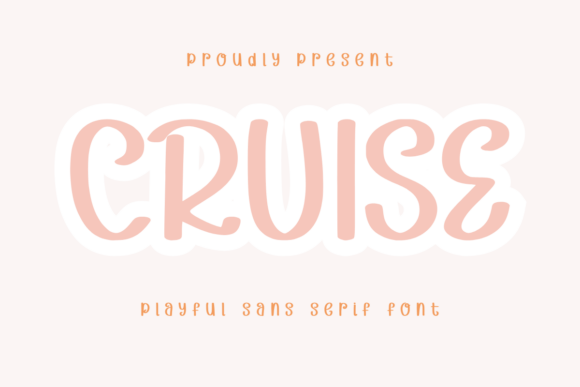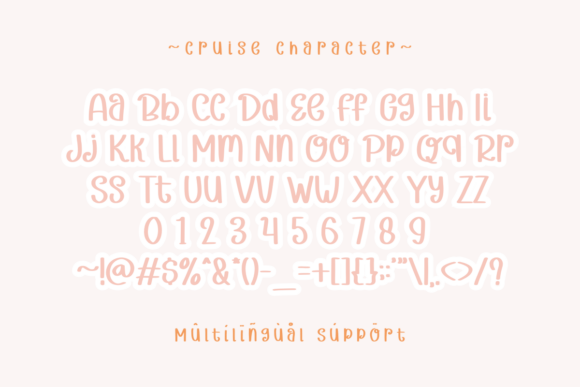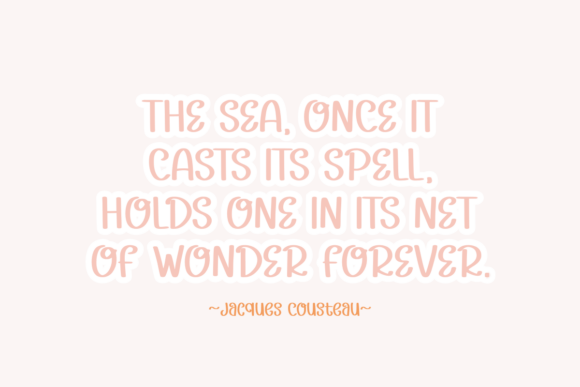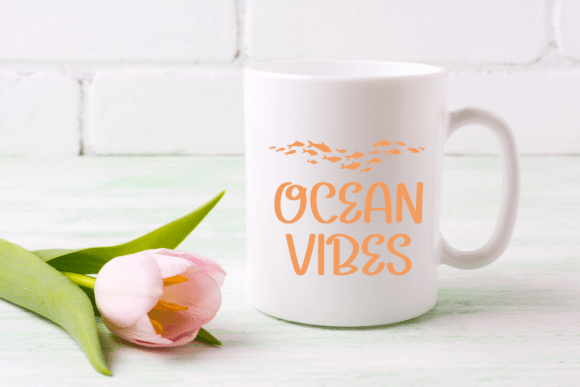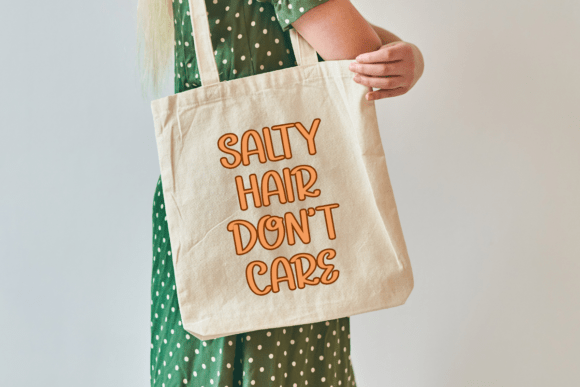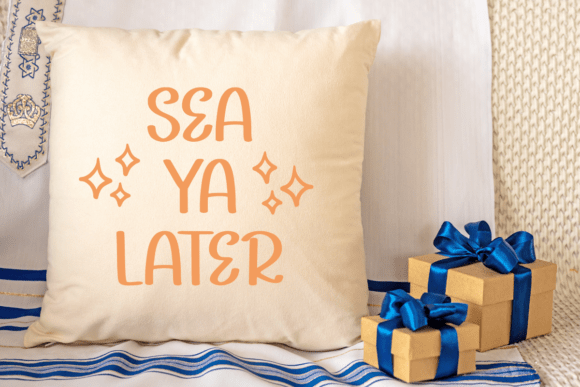
Deck the Halls with the Perfect Holiday Font
As the holiday season approaches, designers are scrambling to create festive and fun designs that capture the magic of the season. For many of us, it’s that moment when we’re brainstorming ideas for our holiday cards or invitations, and we just can’t seem to find the right font to match our vision. That’s where the Cruise Font comes in – a delightful sans serif font that’s specifically designed to add a touch of holiday cheer to your designs.
This charming font is perfect for creating cards, invitations, and other holiday-themed graphics that exude joy and festivity. With its playful curves and bold lines, the Cruise Font is sure to make your designs stand out from the crowd. Whether you’re a seasoned designer or just starting out, this font is a valuable addition to your toolkit – and a great way to add some holiday magic to your work.
- Font Family: Cruise Font is a sans-serif typeface designed for use in digital applications.
- Unique Characteristics: Features a clean, modern design with a subtle rounded edge, making it suitable for use in a variety of digital applications, including websites, mobile apps, and digital signage.
- Kerning and Ligatures: Includes advanced kerning and ligature features to ensure smooth text rendering and improved readability.
Cruise Font Review
As a designer, I’ve had the chance to work with a wide variety of fonts, but “Cruise Font” caught my eye. ✨ One of the things that stood out to me was its clean and modern aesthetic. The font is perfect for anyone looking for a clean and sophisticated look.
Here are some of the things that I like about “Cruise Font”:
- ✨ Highly legible: The font is easy to read, even at small font sizes.
- ✨ Versatile: It works well for both digital and print applications.
- ✨ Stylish: The font has a unique, modern flair that sets it apart from other fonts.
- ⚠️ Limited language support: “Cruise Font” doesn’t support a wide range of languages, which may be a problem for designers who need to work with multiple languages.
- ⚠️ Limited character set: The font has a limited character set, which may not be suitable for designers who need to use special characters or symbols.
Overall, I think “Cruise Font” is a solid choice for designers who are looking for a clean and modern font. While it may have some limitations, its unique style and high legibility make it a great option for a wide range of applications.
Tips for getting the most out of Cruise Font in Canva: Use it for headings and titles to create a sense of elegance and sophistication. Experiment with different font sizes and colors to add visual interest.
Tips for getting the most out of Cruise Font in Adobe Photoshop or Illustrator: Use it for creating custom logos or typography-based designs. Experiment with different font styles and effects to add texture and depth.
Tips for getting the most out of Cruise Font in PowerPoint or Word: Use it for creating presentations or documents that require a touch of elegance. Experiment with different font sizes and colors to add visual interest.
Cruise Font is commonly used in the following scenarios:
- Luxury brand logos and marketing materials
Can I customize Cruise Font to fit my brand’s specific needs?
Yes, Cruise Font is a variable font, which means you can customize it to fit your brand’s specific needs. You can adjust the font’s weight, width, and x-height to create a unique style that suits your brand’s identity. Additionally, you can also customize the font’s color, size, and line height to create a consistent